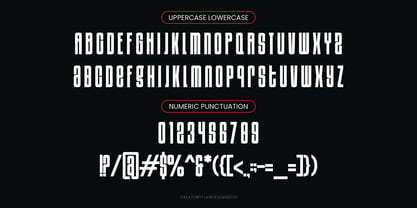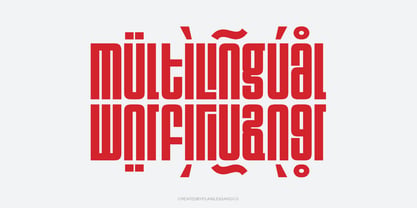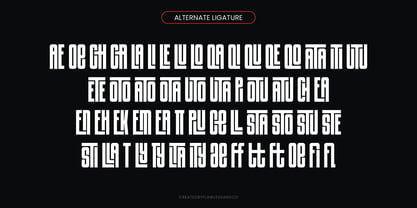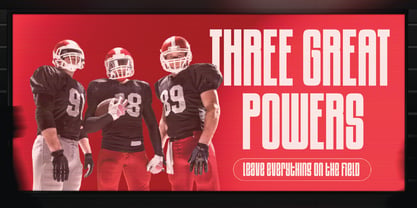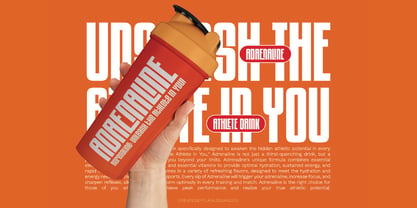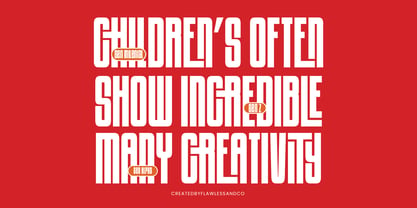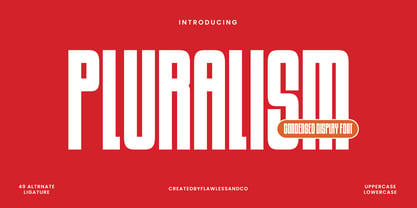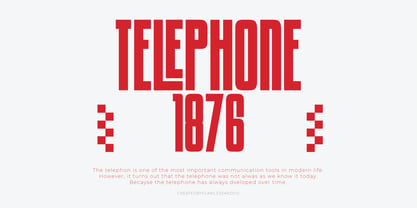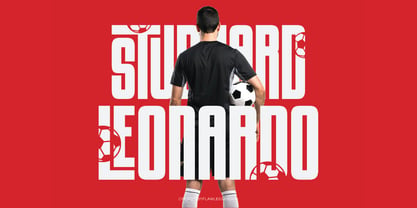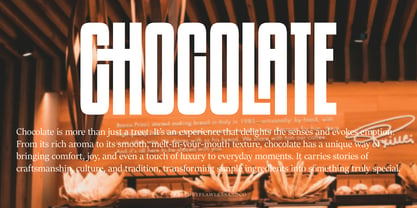
Pluralism
by Flawlessandco
The Pluralism Font Family was designed by Achmad Yani and published by Flawlessandco. Pluralism contains 1 styles. More about this family
Pluralism is a condensed display sans serif font that combines modern aesthetics with bold, impactful letterforms. Its sleek and compact design makes it perfect for headlines, posters, branding, editorial layouts, and advertising materials. Pluralism is ideal for projects that require a strong and contemporary visual presence while maintaining excellent readability. Features : Multilingual, Uppercase alphabet A-Z, Lowercase alphabet a-z, Numbers 0-9, Some punctuation, Alternates & Ligatures NOTE: For all the characters are also available, accessible in the Adobe Illustrator Glyphs Panel, or in Adobe Photoshop Character Open Type Panel. If you need help, just write me! Thanks so much for checking out my shop!
Designers: Achmad Yani
Foundry: Flawlessandco